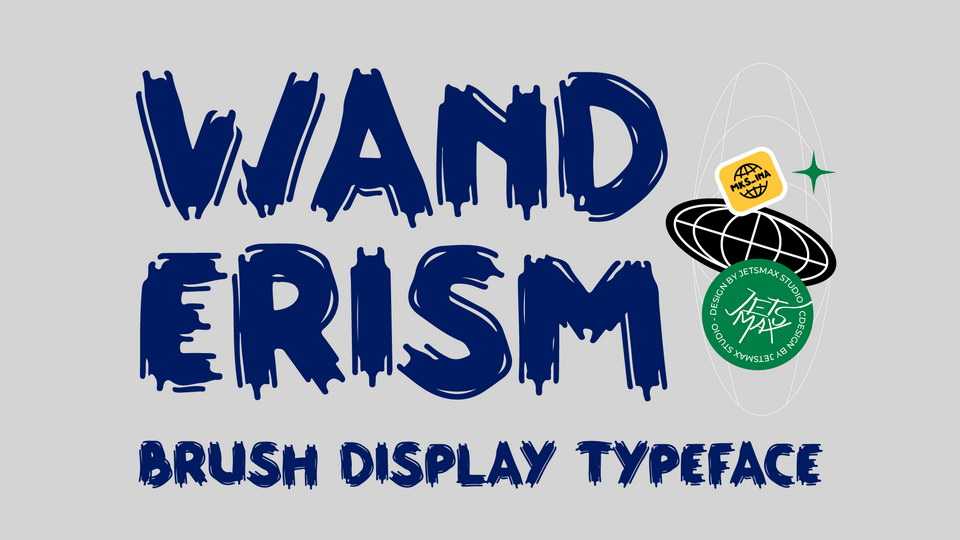
Download Wanderism font, a trendy brush typeface that heavily influenced by neo-graffiti art style. If you need a bold and fresh touch on your design projects, then Wanderism is the right font for you!
Designer: Jetsmax Studio